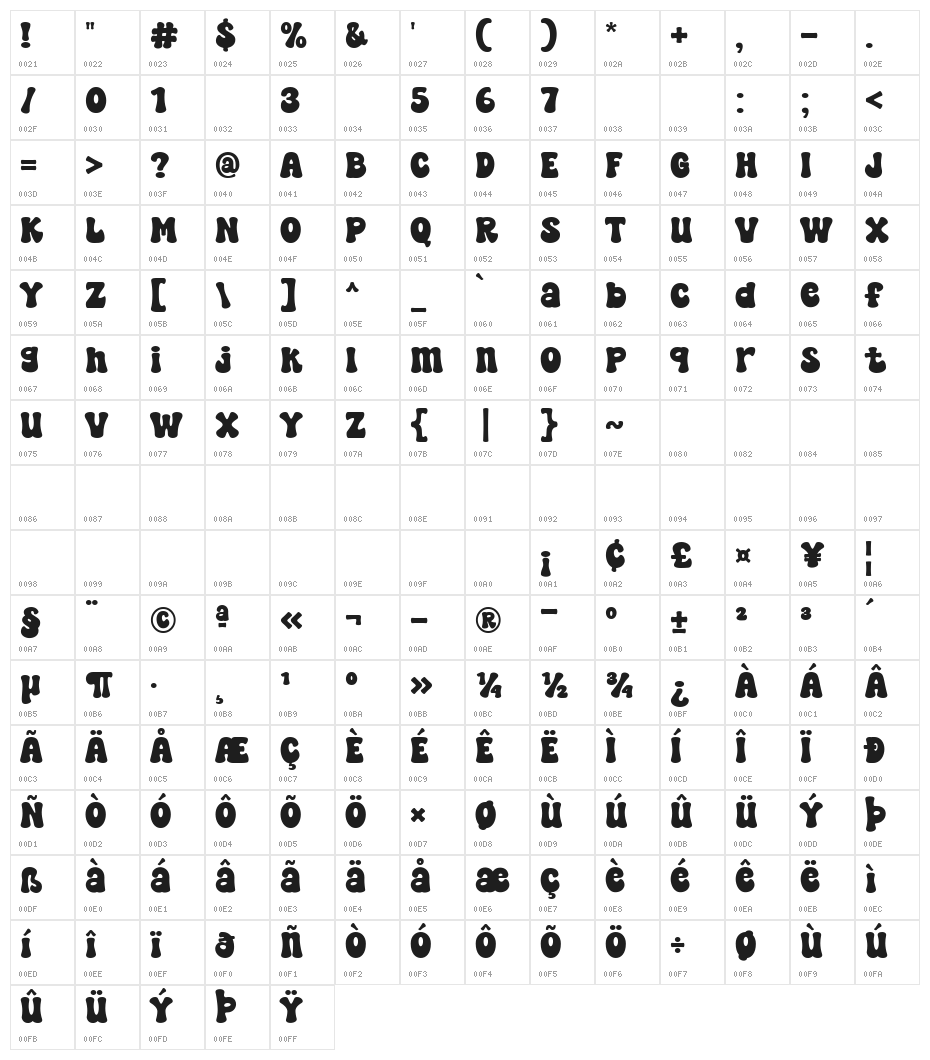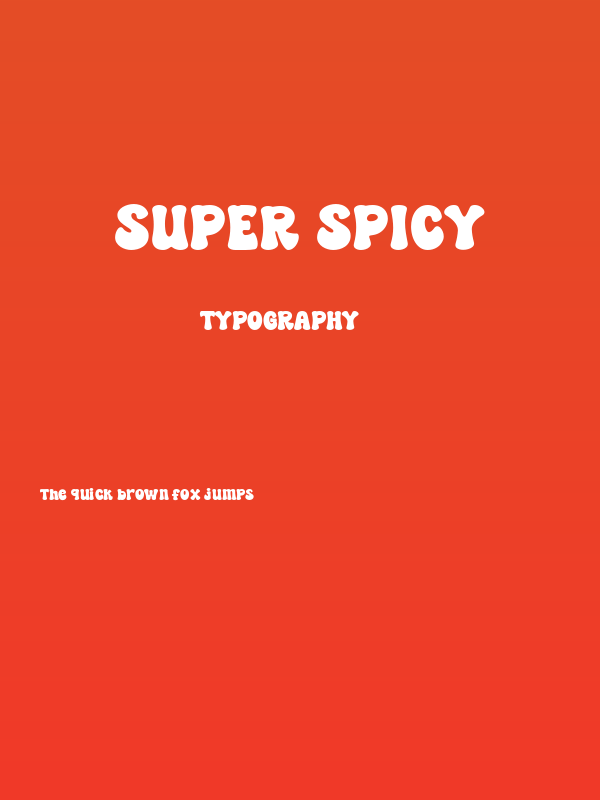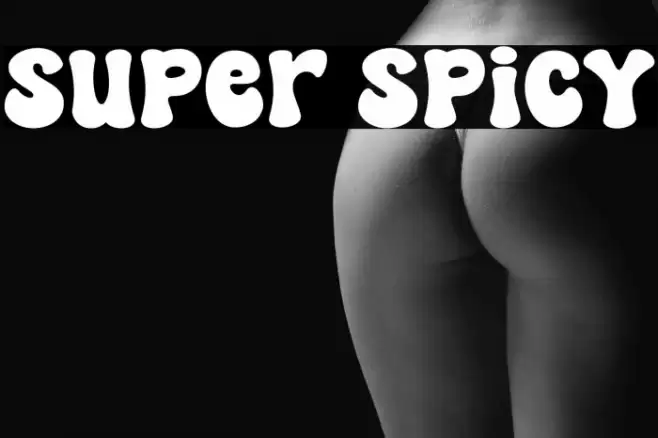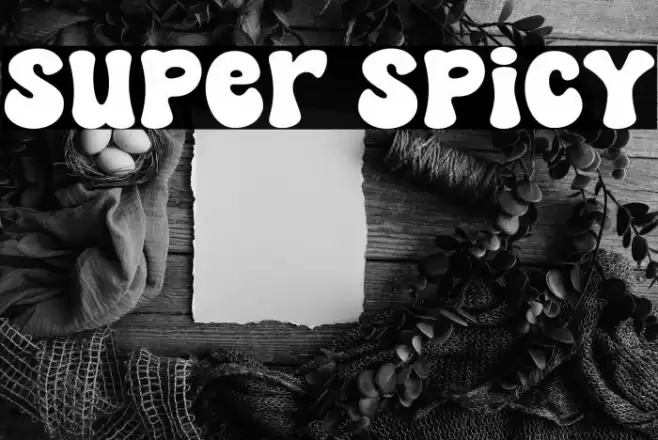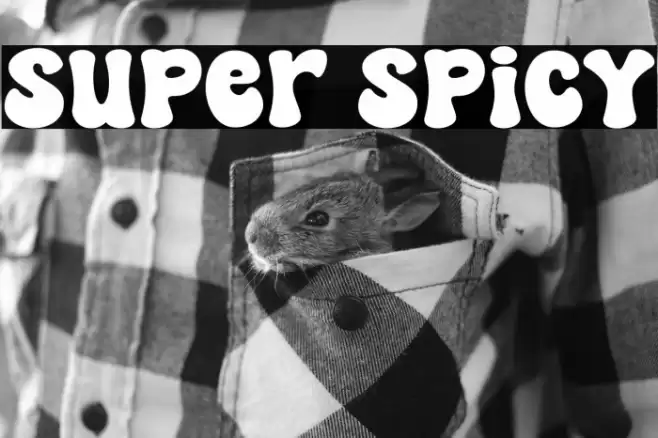
Super Spicy Font
Super Spicy Description
This font features a bold and playful design with thick, rounded edges and a bubbly appearance. The characters are uniformly bold, giving a sense of weight and presence. The style is reminiscent of retro or vintage aesthetics, often seen in playful or informal settings. The letters are evenly spaced, maintaining a consistent flow across the text. The numbers and special characters follow the same design principles, ensuring a cohesive look. This font is ideal for projects that require a fun and engaging visual impact, such as children's books, party invitations, or branding for playful products.